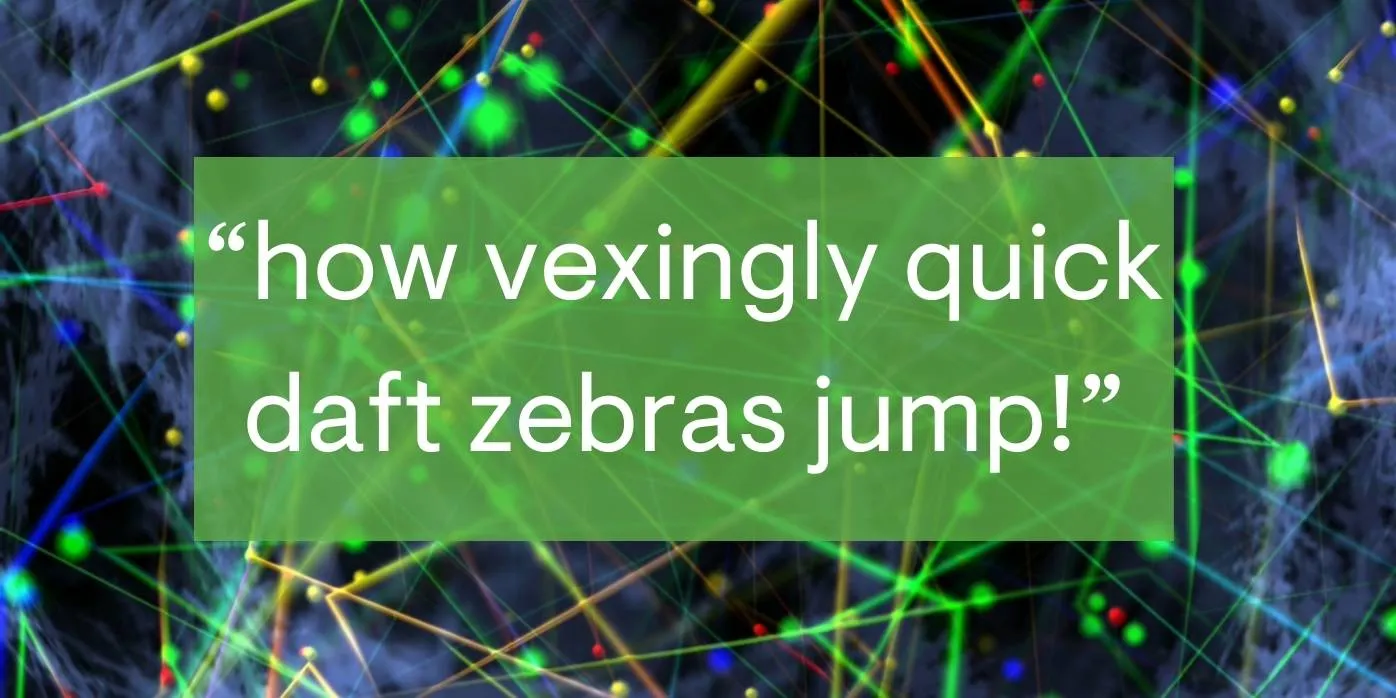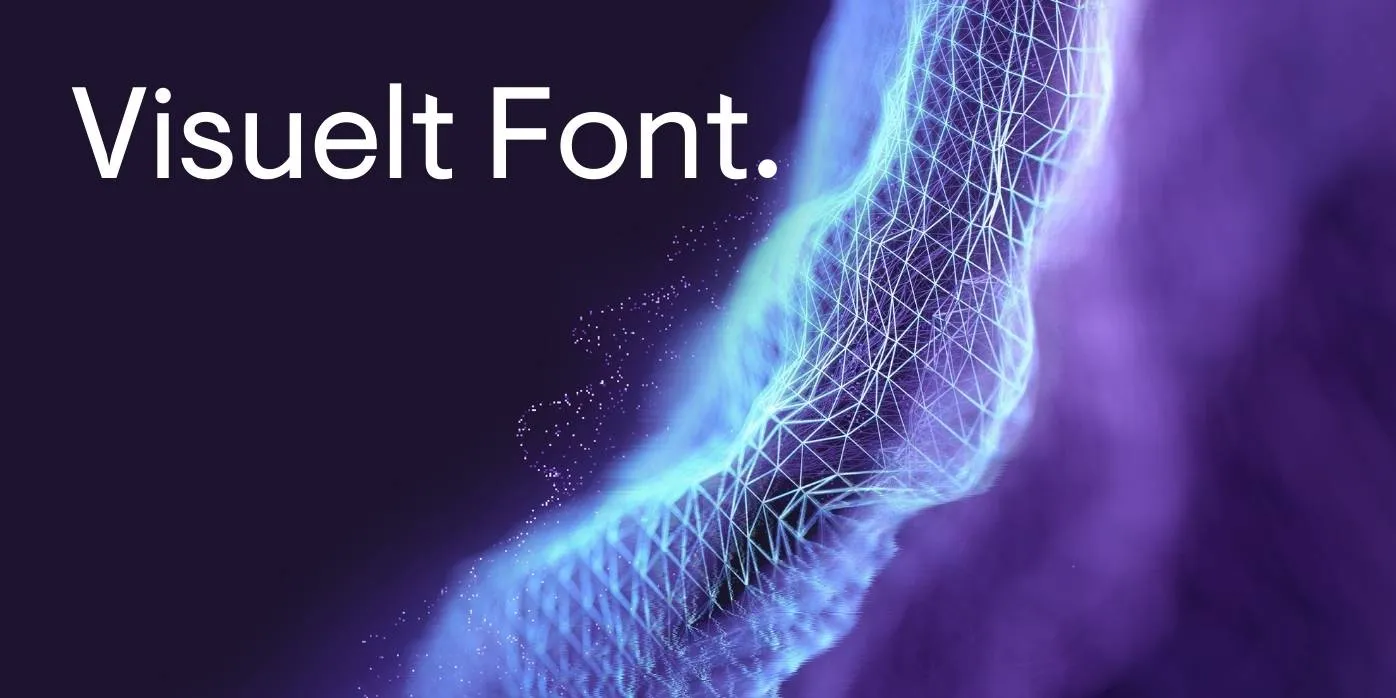
Visuelt Font
Here, We are consulting about the most famous and attractive typeface that is known by the name Visuelt Font. This classy font belongs to the Sans-Serif Font family. This staggering typeface was designed by the hard work of two elegant designers Anthony Sheret and Edd Harrington. In the year 2014, this marvelous font family was released first time by the popular Colophon Foundry.
This amazing and very famous font is available in 14 unique styles and also it has different weights nearly equal to seven. It is unique and popular because of its attractive style. Different designers wish to pick out this classic font for all of their projects and functions. Rubik font is the most alternative font to this modern and stunning typeface that gives the best interface for all plans and functions.